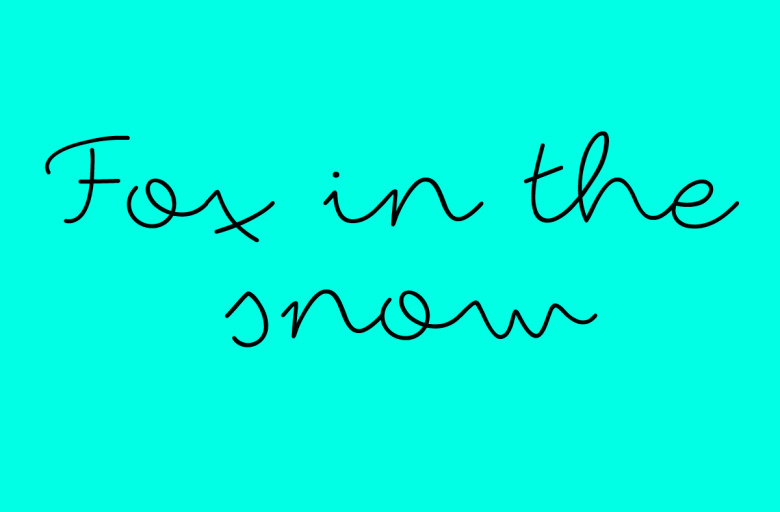
Fox in the snow Font
Fox in the snow is a high quality Handwritten font that is designed by Roland Huse Design and is available for free download and personal use. The free version provides all uppercase and lowercase letters and a few special characters too.